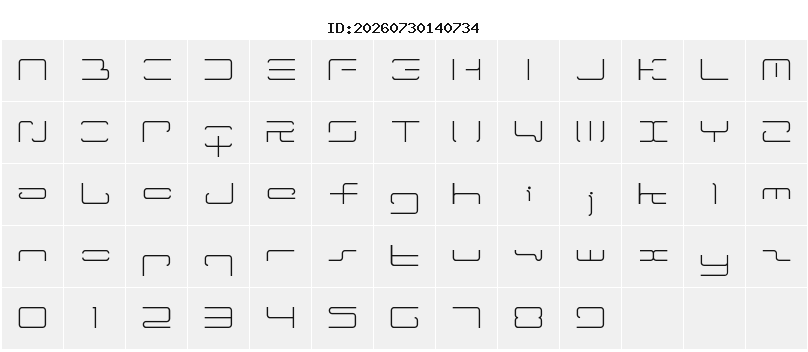
ltr-04:wireflame Preview
About ltr-04:wireflame.ttf
ltr-04:wireflame.ttf is a modern, elegant sans-serif font designed for ultimate readability and visual harmony. Perfect for branding, headlines, web design, and print materials.